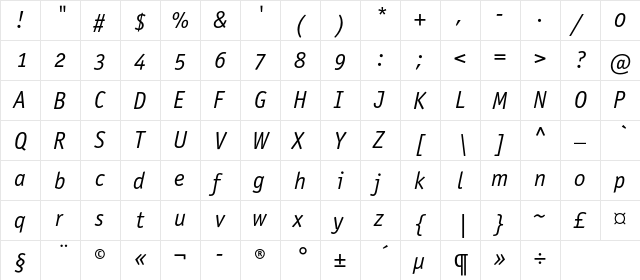
OfficinaSansBookOSC Italic
Design Context for OfficinaSansBookOSC Typeface
OfficinaSansBookOSC offers clean, dependable letterforms without strong stylistic allegiance, making it a practical choice for designers who need flexibility. The slanted form adds forward momentum and visual energy.
Pro Tip: Use OfficinaSansBookOSC for emphasis, pull quotes, and subheadings where its slanted energy can add rhythm to the layout.